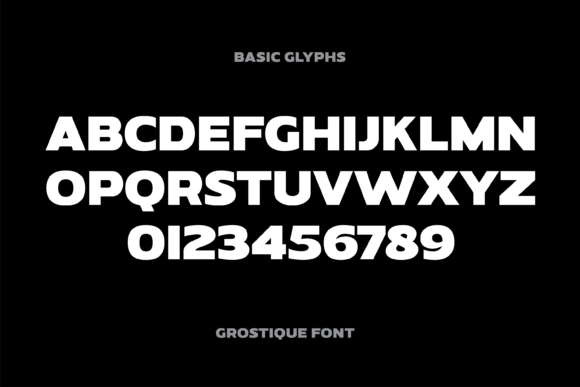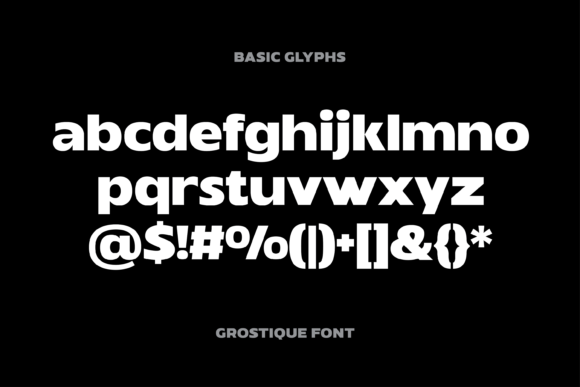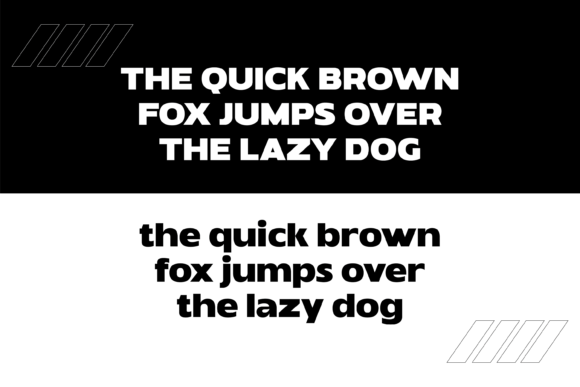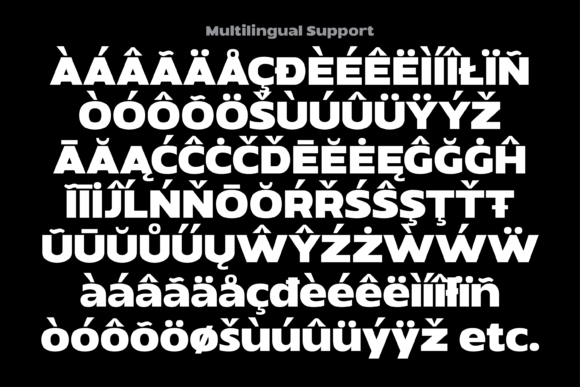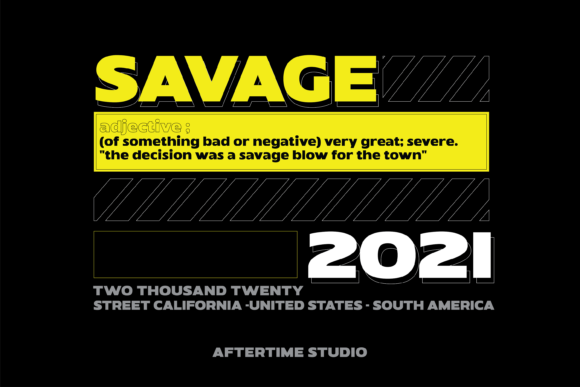
Grostique Font: The Ultimate Choice for Daring Designs
In the world of typography, fonts play a crucial role in making or breaking a design. A bold and eye-catching font can elevate your project from ordinary to extraordinary. If you’re looking for a font that exudes confidence and sophistication, look no further than Grostique Font. In this article, we’ll explore the features and benefits of Grostique Font, and why it’s the perfect choice for designers and crafters who dare to be different.
What is Grostique Font?
Grostique Font is a bold and solemn sans serif font that’s designed to make a statement. Its clean and modern lines make it perfect for projects that require an outstanding appearance. Whether you’re working on a streetwear design, logo branding, editorial design, music poster, or modern advertising campaign, Grostique Font is the ideal choice.
Key Features of Grostique Font
- Bold and Eye-Catching: Grostique Font is designed to grab attention. Its bold and sturdy lines make it perfect for headlines, titles, and logos.
- Sans Serif: The font features a clean and modern sans serif design, making it easy to read and versatile for various design applications.
- Solemn and Sophisticated: Despite its bold nature, Grostique Font exudes a sense of sophistication and elegance, making it suitable for high-end designs.
Use Cases for Grostique Font
Grostique Font is a versatile font that can be used in various design projects, including:
- Streetwear Designs: Grostique Font is perfect for streetwear designs that require a bold and edgy look.
- Logo Branding: The font’s bold and memorable design makes it ideal for logo branding and identity projects.
- Editorial Designs: Grostique Font can add a touch of sophistication to editorial designs, such as magazines, newspapers, and books.
- Music Posters: The font’s bold and eye-catching design makes it perfect for music posters and event promotions.
- Modern Advertising Campaigns: Grostique Font can help your advertising campaigns stand out with its bold and attention-grabbing design.
Benefits of Using Grostique Font
Using Grostique Font in your design projects can offer several benefits, including:
- Unique and Memorable: Grostique Font’s bold and eye-catching design makes it unique and memorable, helping your project stand out from the crowd.
- Versatile: The font’s clean and modern design makes it versatile for various design applications, from print to digital.
- Easy to Read: Despite its bold nature, Grostique Font is easy to read, making it perfect for body text and headlines.
Tips for Using Grostique Font
To get the most out of Grostique Font, here are some tips to keep in mind:
- Use it Sparingly: Grostique Font is bold and attention-grabbing, so use it sparingly to avoid overwhelming your design.
- Pair it with Other Fonts: Experiment with pairing Grostique Font with other fonts to create a unique and visually appealing design.
- Adjust the Size and Weight: Adjust the size and weight of Grostique Font to create visual hierarchy and emphasis in your design.
Grostique Font is a bold and eye-catching sans serif font that’s perfect for designers and crafters who dare to be different. Its clean and modern design makes it versatile for various design applications, from streetwear designs to modern advertising campaigns. With its unique and memorable design, Grostique Font can help your project stand out from the crowd. So why settle for an ordinary font when you can make a statement with Grostique Font?